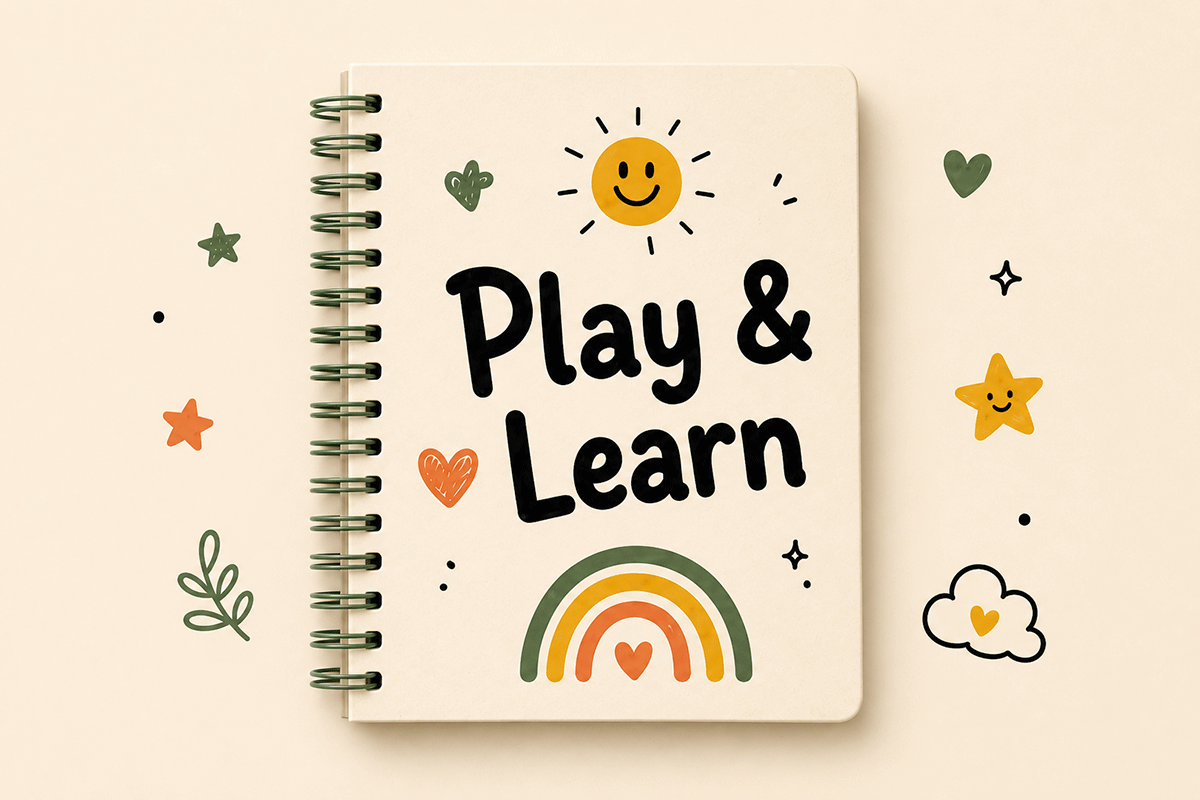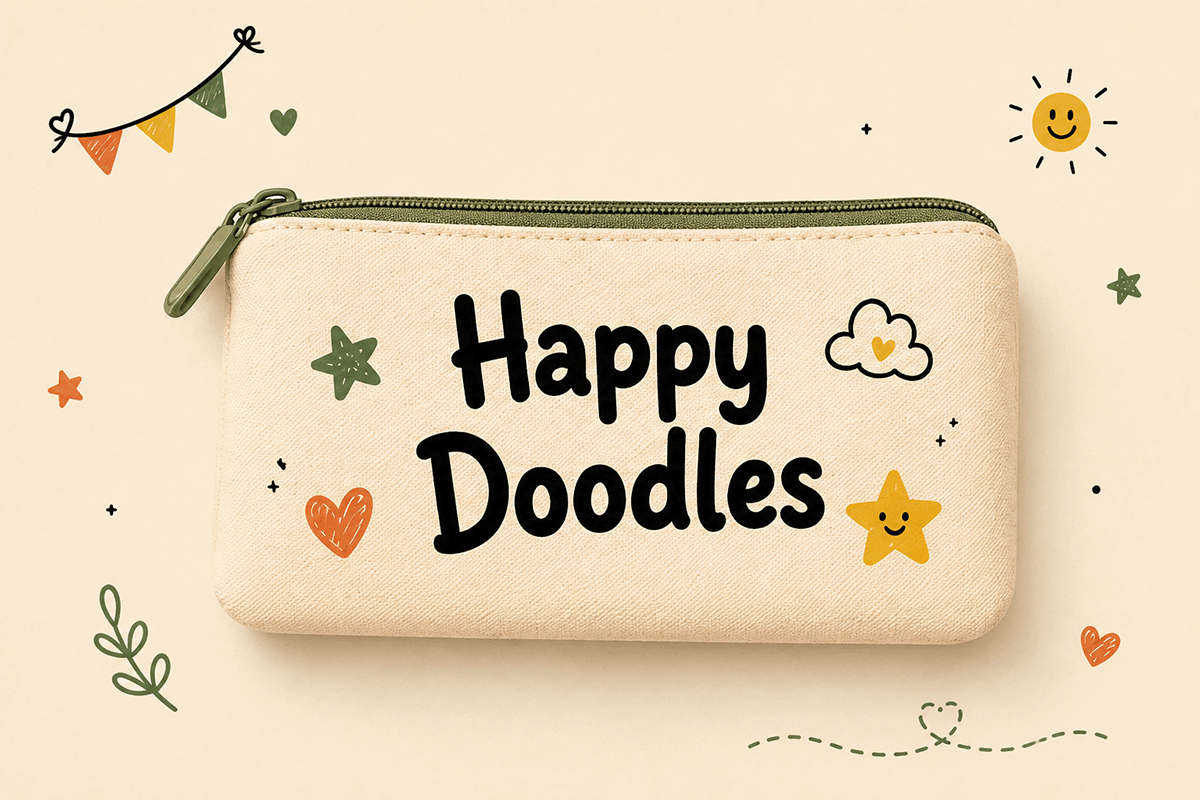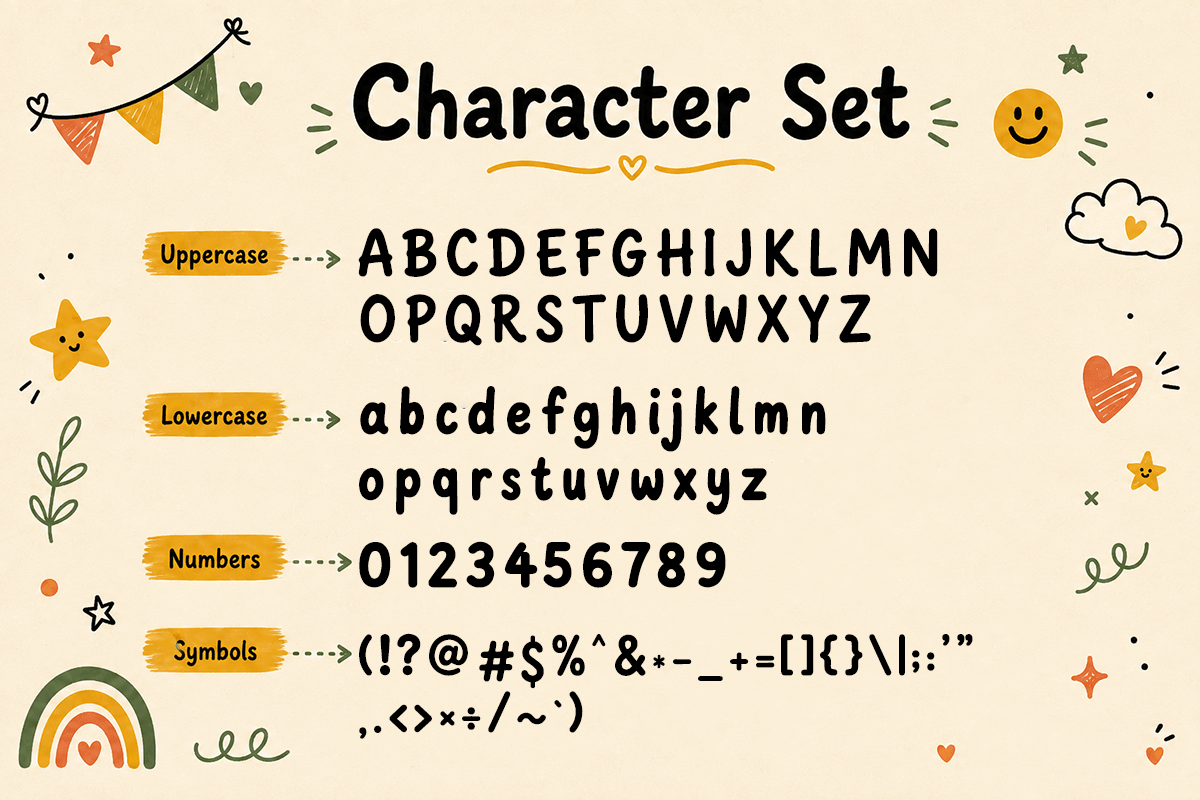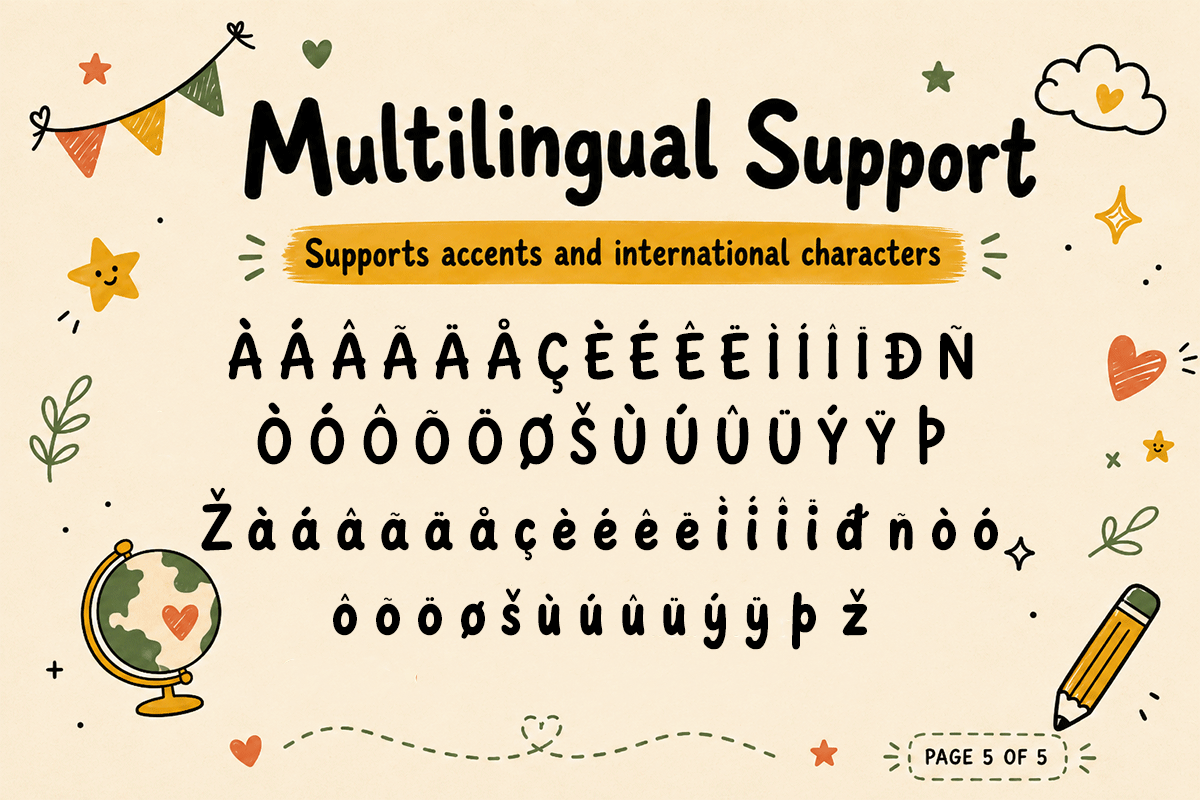
Doodle Day A Modern Playful Display Kids Font is a cute, friendly, and playful handwritten display font designed to bring warmth and personality to every creative project. With its soft shapes, rounded strokes, and charming handmade style, this font creates a fun and approachable look that feels cheerful and full of character.
Inspired by doodles, children’s drawings, and casual handwriting, Doodle Day A Modern Playful Display Kids Font is perfect for designs that need a sweet, joyful, and creative touch. Its simple yet expressive letterforms make it ideal for both digital and printed projects. Our collection of Espot & Futuristic fonts is compatible to use as Figma fonts, Canva fonts, Freepik Fonts, and Adobe Fonts]. They also work as Windows Fonts, and Apple Fonts. For your social media needs, you can use and install fonts in our collection of Espot & Futuristic fonts to use as Instagram Fonts, Facebook Fonts, and Twitter Fonts.For our customers, we provide a collection of The Best display & E-sport Futuristic StyleFonts, each with its own unique styles and characteristics, so that our customers can create any design they want. We know what our clients love! That is why we prepare everything you may need in one simple downloadable package for you. Our easy-to-grab package contains all of the files you will ever need to create beautiful typography!